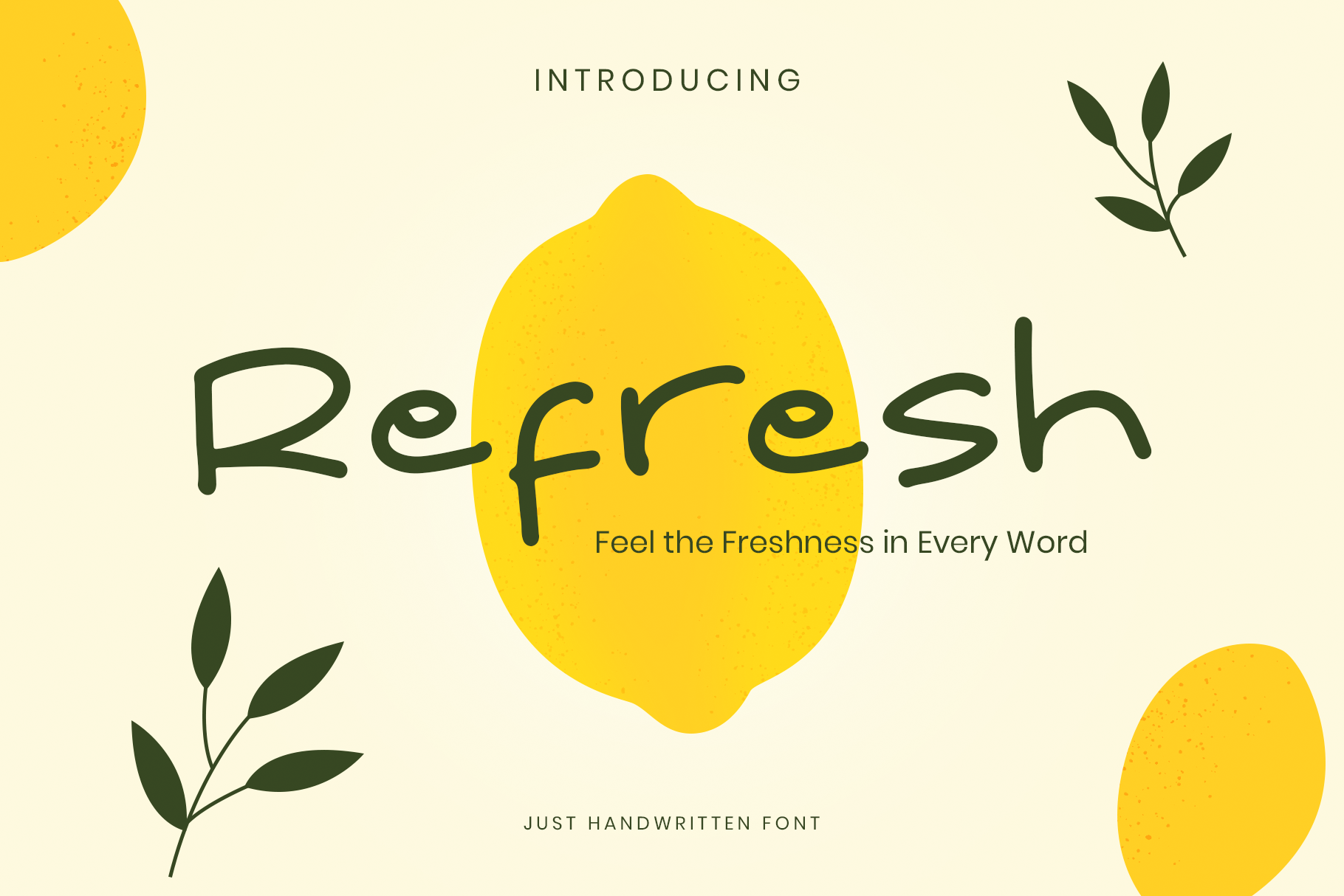
Refresh HF
Renew the spirit of your card designs with Refresh Handwritten Font, a fonts for cards that brings a breath of fresh air to your creative projects. The fluid strokes and delicate details of Refresh add an element of sophistication, making it an ideal choice for various card designs, including greetings, invitations, and more.
Elevate your cards with the revitalizing charm of Refresh Handwritten fonts for cards, turning each piece into a visual masterpiece that captures the essence of elegance and creativity.
Refresh Handwritten Font